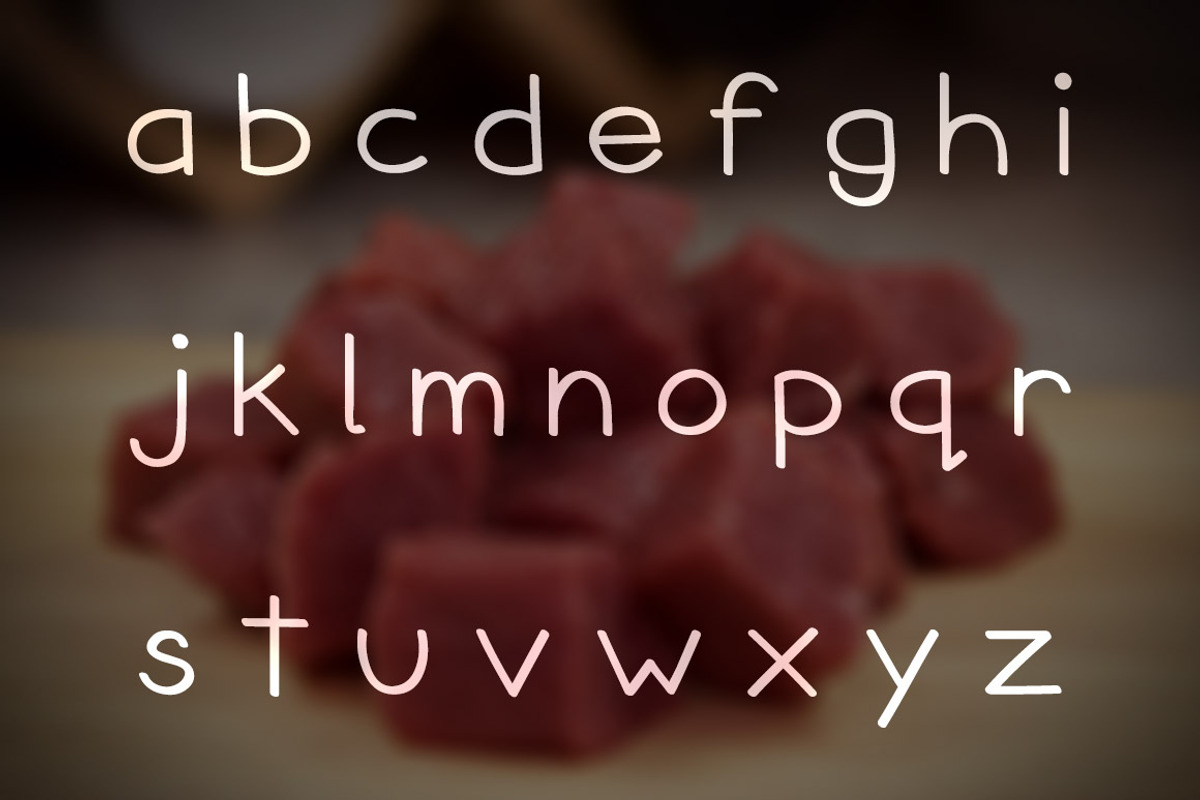
Tender Font Family
Tender Font Family by Design Panoply is a font selected for branding, posters, packaging, typography.
Why Tender Font Family is worth a look
Tender Font Family by Design Panoply fits naturally into Branding, posters, packaging, typography.